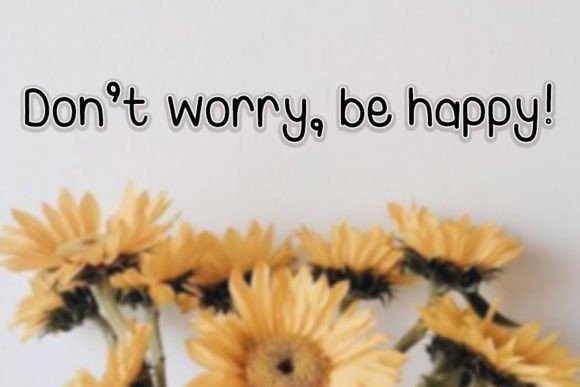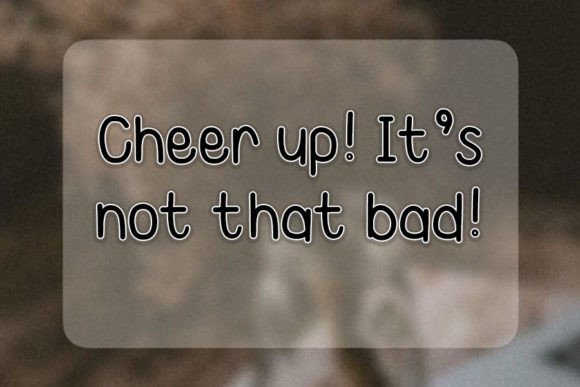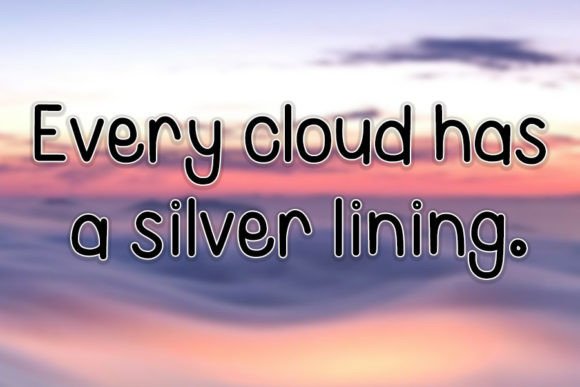
Almonds Font: Adding a Personal Touch to Your Designs
Are you looking for a font that can add a warm, personal touch to your designs? Look no further than Almonds Font. This beautiful, handwritten font is perfect for use in invitations, greeting cards, or any design project that requires a human touch. In this article, we’ll take a closer look at Almonds Font, its features, and how you can use it to bring a touch of individuality to your work.
What is Almonds Font?
Almonds Font is a unique, handwritten font that exudes a warm, personal touch. Its letterforms are carefully crafted to resemble handwriting, making it perfect for designs that require a personal and human touch. The font is designed to be versatile and can be used in a variety of design projects, from invitations and greeting cards to branding and packaging.
Features of Almonds Font
Almonds Font has several features that make it stand out from other fonts. Some of its key features include:
- Handwritten letterforms: Almonds Font features unique, handwritten letterforms that bring a touch of individuality to your designs.
- Warm and personal: The font has a warm, personal touch that makes it perfect for designs that require a human touch.
- Versatile: Almonds Font can be used in a variety of design projects, from invitations and greeting cards to branding and packaging.
- Easily readable: Despite its handwritten nature, Almonds Font is easily readable, making it perfect for use in body text.
Uses of Almonds Font
Almonds Font is perfect for use in a variety of design projects, including:
- Invitations: Add a personal touch to your invitations with Almonds Font.
- Greeting cards: Use Almonds Font to create beautiful, handmade-looking greeting cards.
- Branding and packaging: Add a touch of individuality to your branding and packaging with Almonds Font.
- Stationery: Use Almonds Font to create beautiful, personalized stationery.
Tips for Using Almonds Font
Here are some tips for using Almonds Font in your designs:
- Use it sparingly: While Almonds Font is beautiful, it can be overwhelming if used too much. Use it sparingly to add a touch of individuality to your designs.
- Pair it with other fonts: Almonds Font pairs well with other fonts, such as serif and sans-serif fonts. Experiment with different pairings to find the one that works best for your design.
- Adjust the size and color: Adjust the size and color of Almonds Font to fit your design. A smaller size and a softer color can create a more subtle look, while a larger size and a bolder color can create a more dramatic look.
Almonds Font is a beautiful, handwritten font that exudes a warm, personal touch. Its unique, handwritten letterforms bring a touch of individuality to your designs, making it perfect for use in invitations, greeting cards, or any design project that requires a human touch. With its versatility, readability, and beautiful design, Almonds Font is a great addition to any designer’s toolkit.
Whether you’re a designer, crafter, or DIY enthusiast, Almonds Font is a great choice for adding a personal touch to your designs. With its unique, handwritten letterforms and warm, personal touch, Almonds Font is sure to become a favorite in your design toolkit.